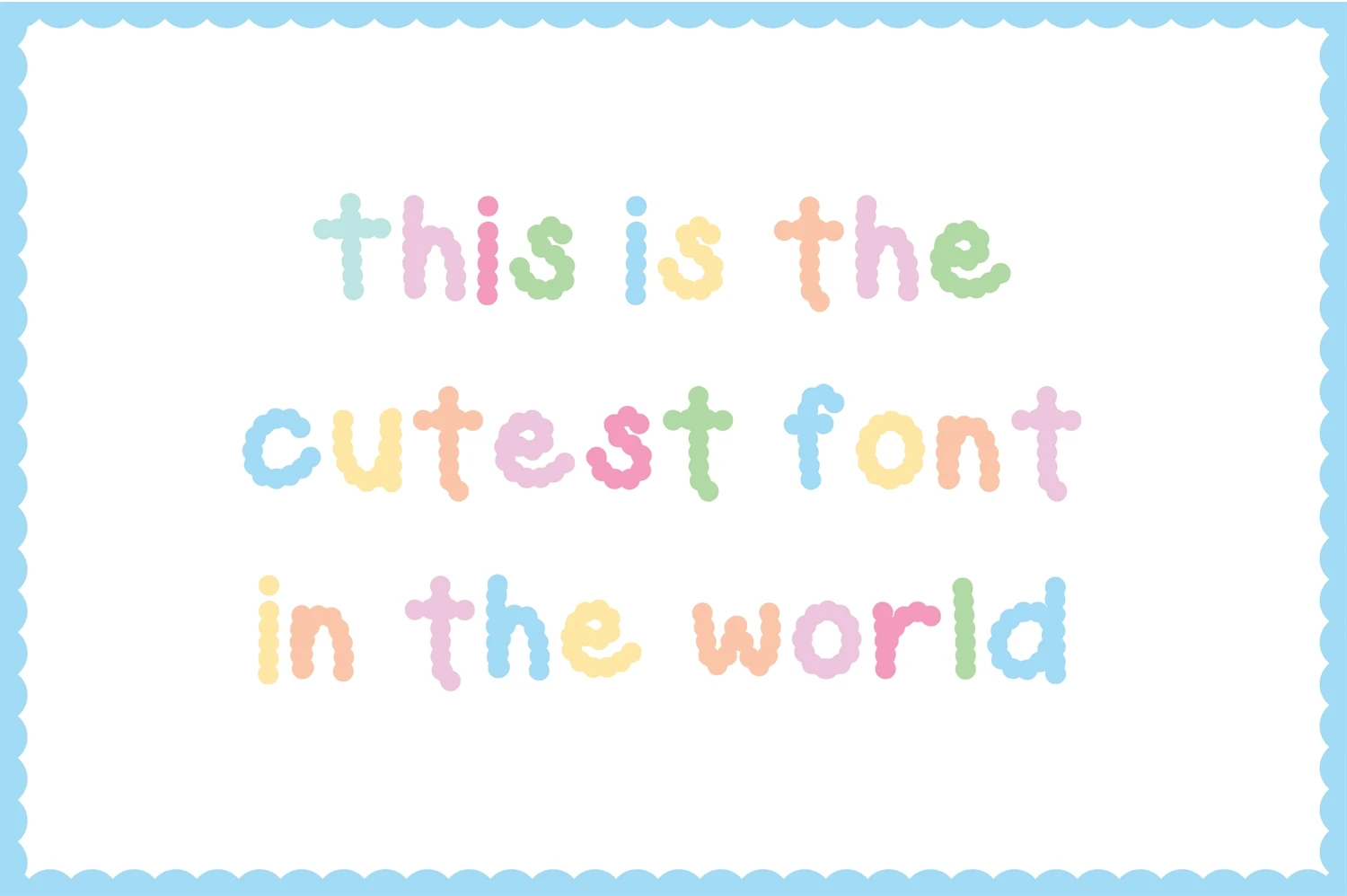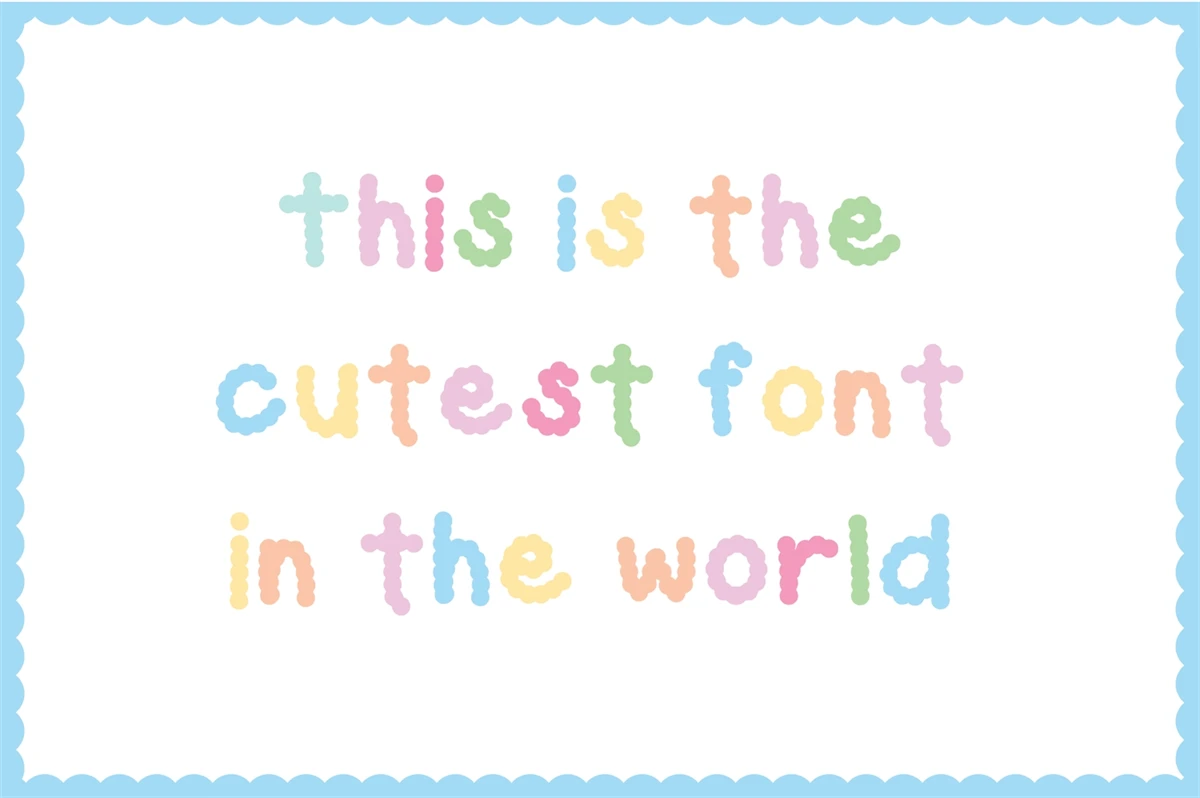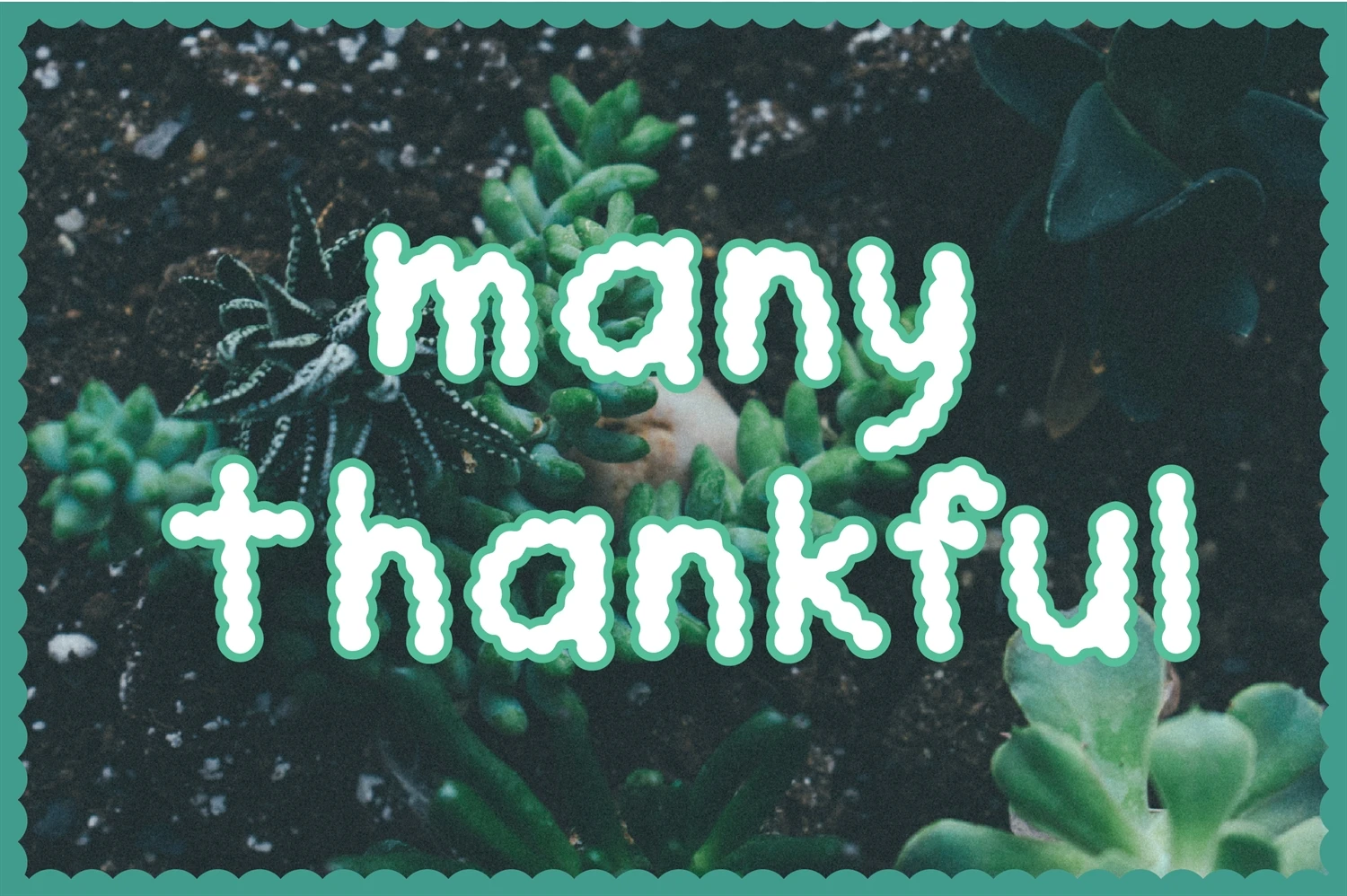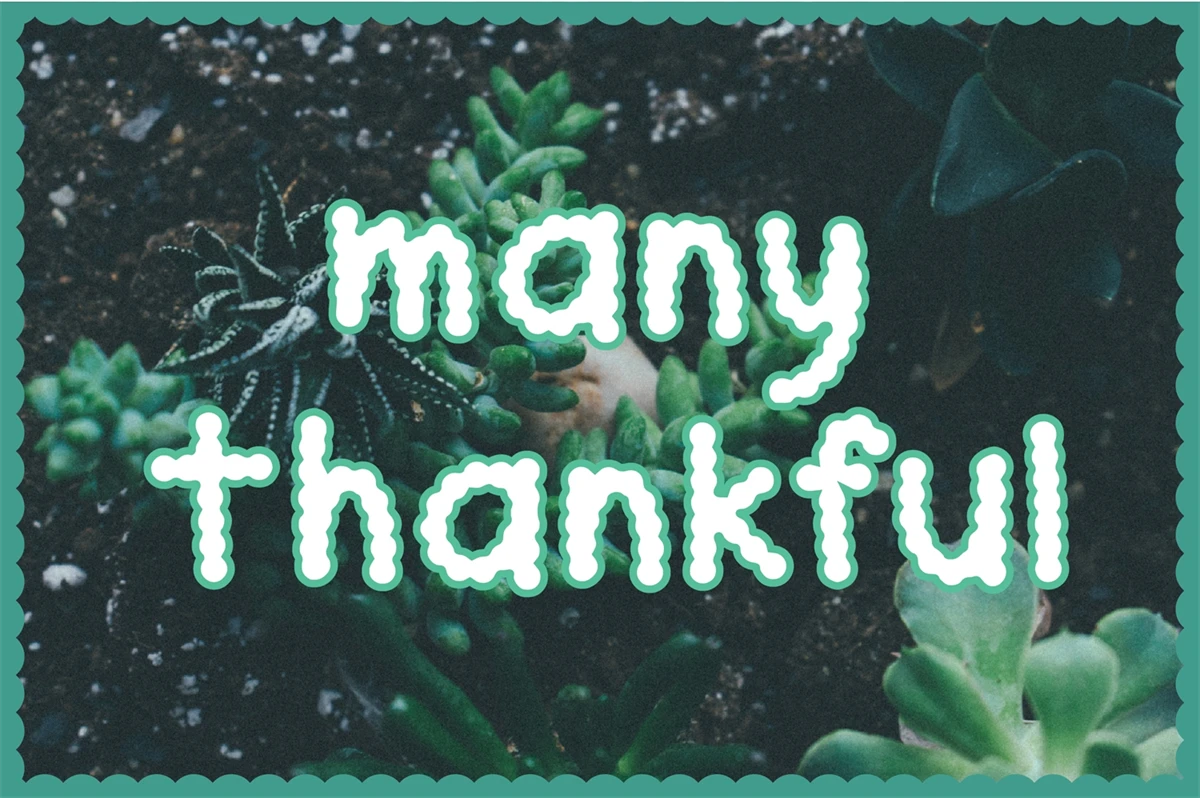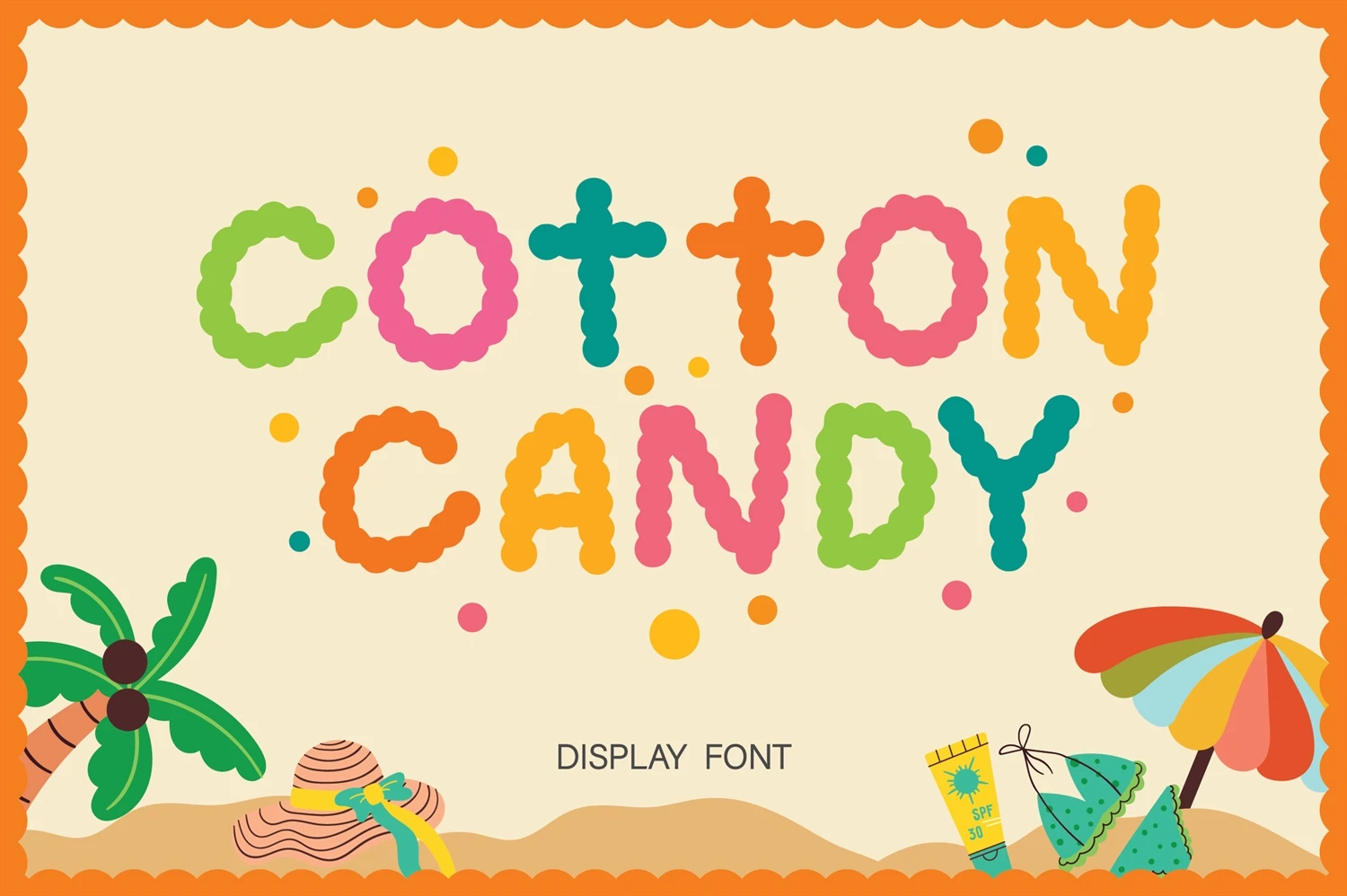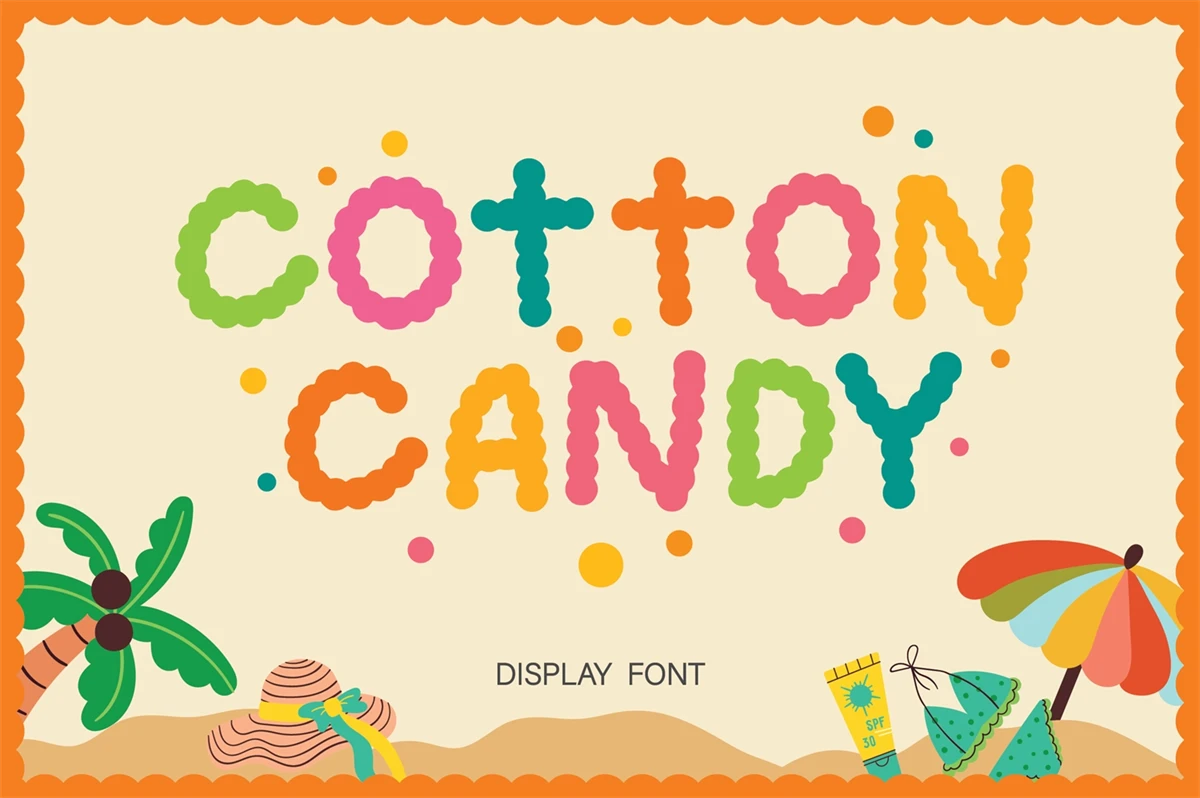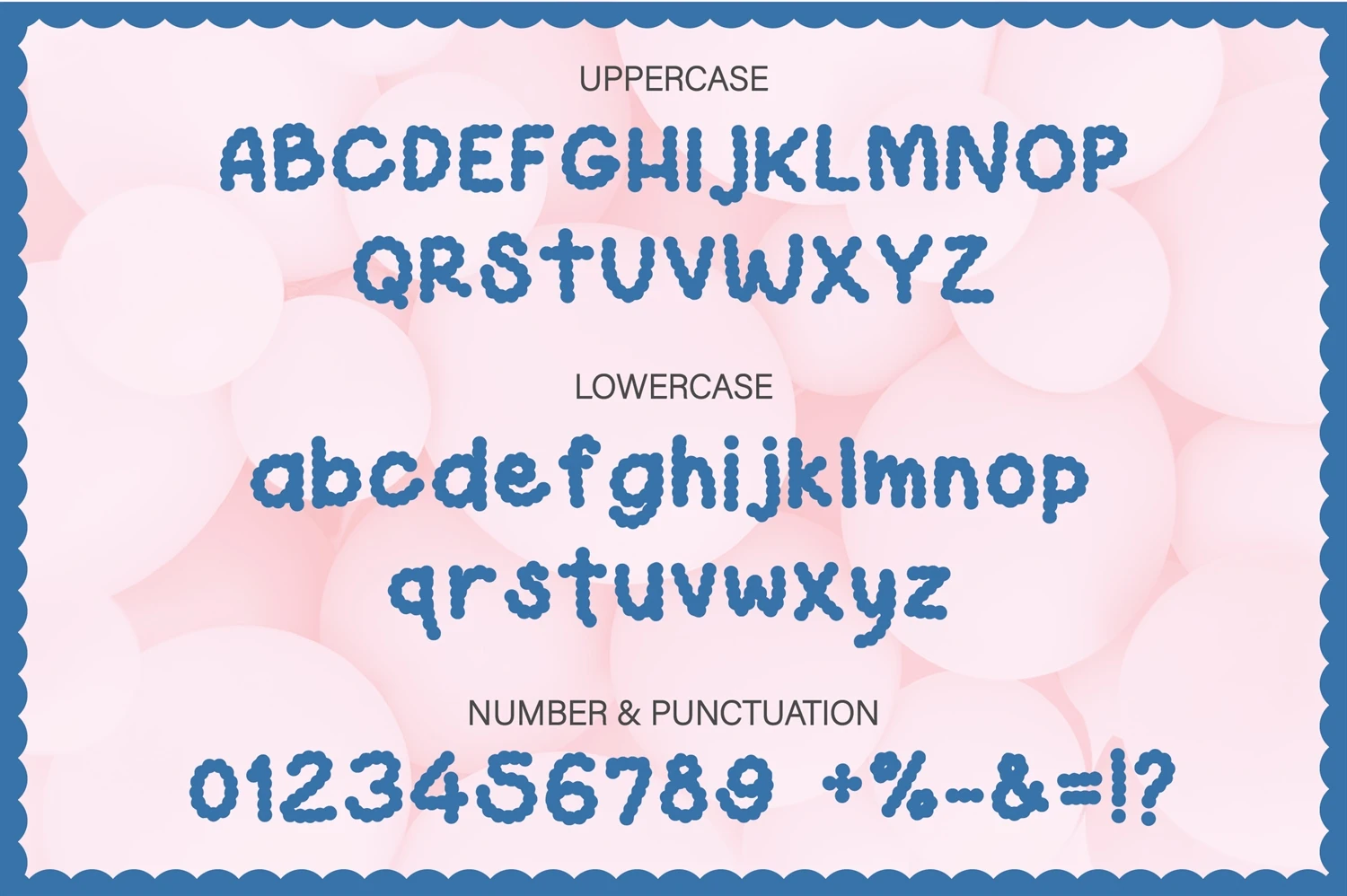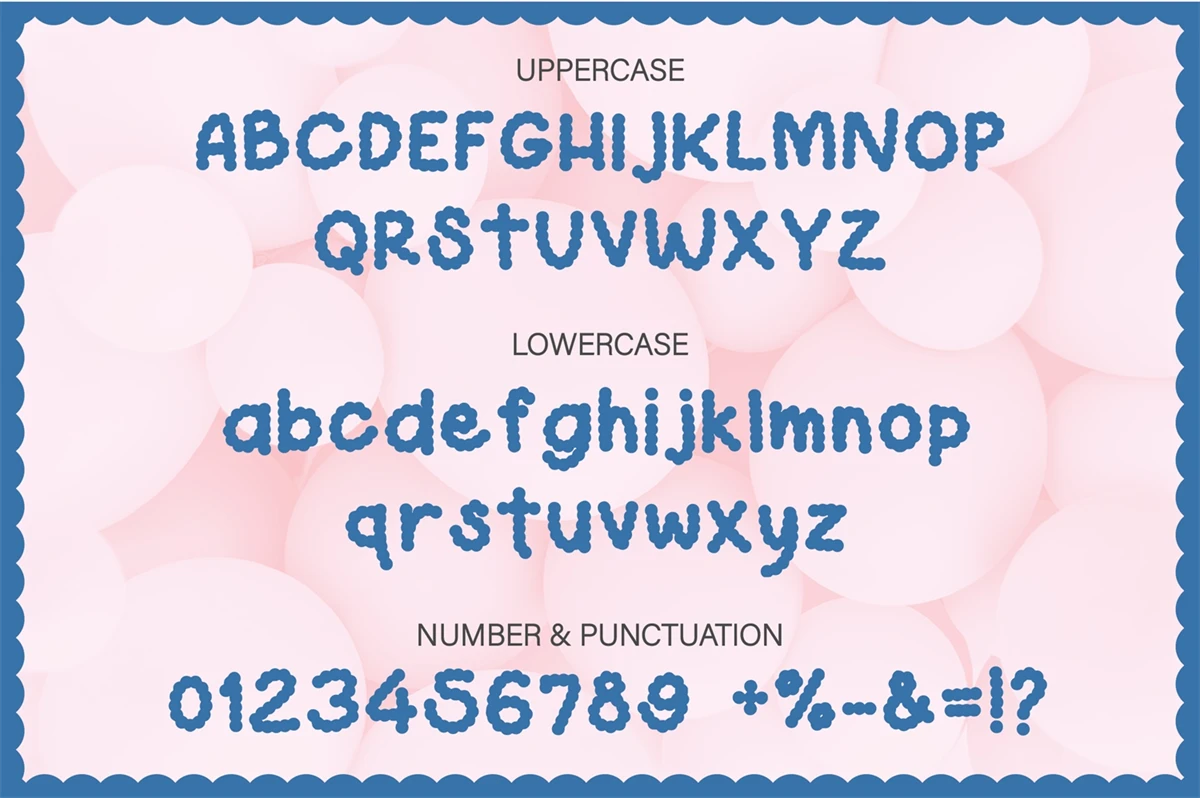
Cotton Candy is a cute and fluffy display font that can make your project be the cutest! Easy to use, not too thin, and not too thick. It is the best choice for creating eye-catching logos, branding materials, quotes, any childrens activity or school project.